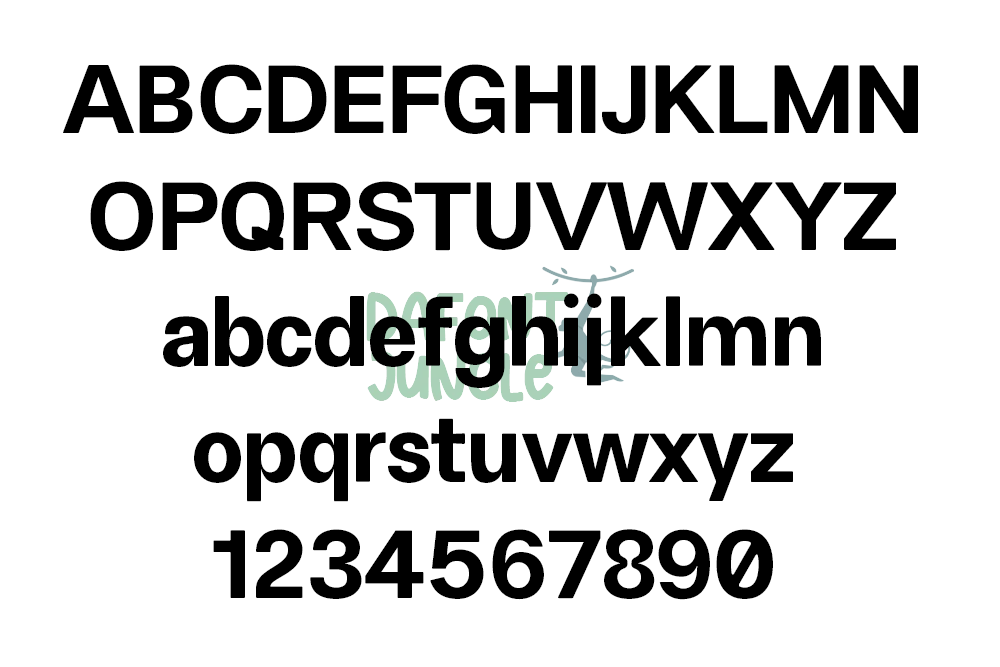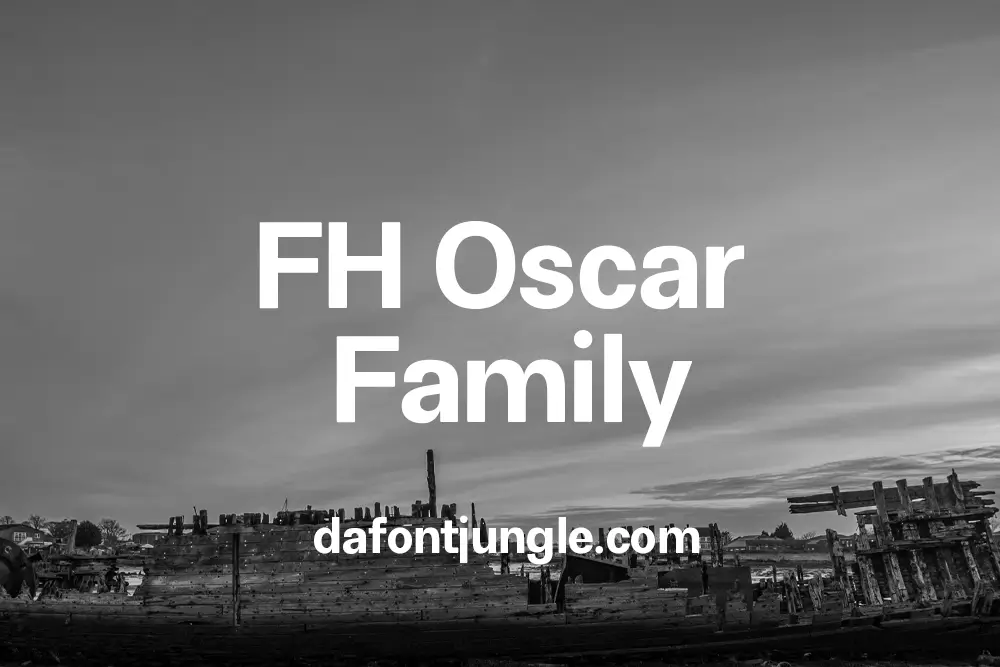
FH Oscar – Modern Grotesque Sans Serif Typeface
FH Oscar is a refined sans serif grotesque font that blends classic structure with modern design needs. Inspired by 19th-century typefaces like Akzidenz Grotesk and Breite Grotesk, FH Oscar delivers strong visual balance for both screen and print. It comes in two subfamilies—Normal and Condensed—with a total of 24 styles, making it highly flexible for editorial layouts, UI design, branding, and beyond.